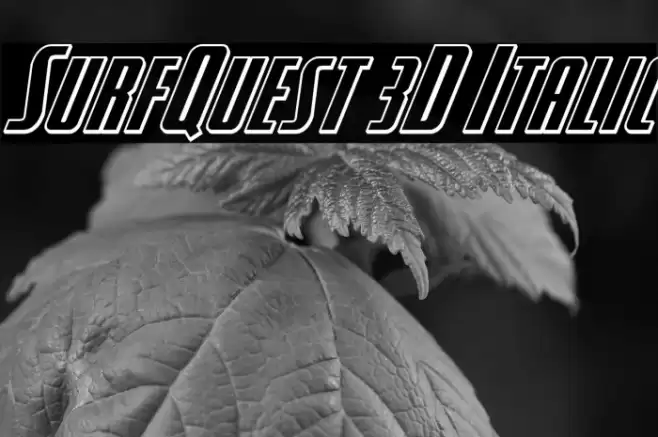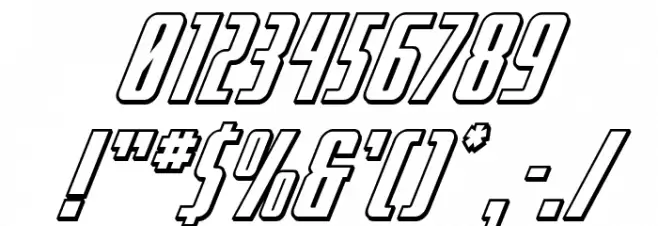
SurfQuest 3D Italic Font
SurfQuest 3D Italic Description
This font features a bold, three-dimensional design with a distinct italic slant, giving it a dynamic and energetic appearance. The characters are outlined, creating a sense of depth and movement. The uppercase letters are prominent, with sharp angles and a futuristic style. The numerals and special characters maintain the same bold and italicized characteristics, ensuring consistency throughout. The overall look is modern and eye-catching, suitable for projects that require a strong visual impact.
A bold, 3D italic font with a modern, dynamic style from Regular fonts.
- Proposed Projects: Ideal for sports branding, event posters, video game titles, and dynamic logo designs.